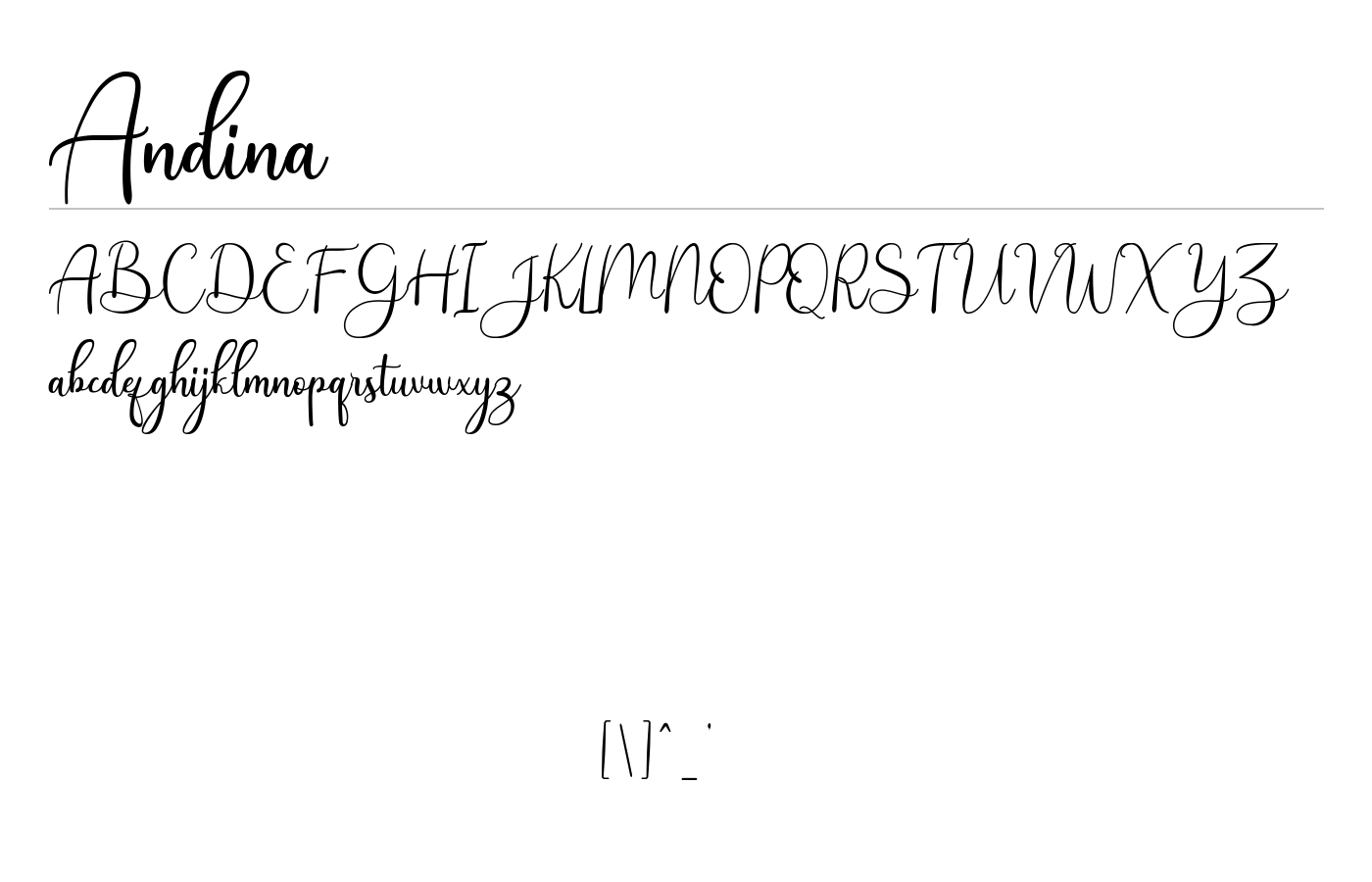
Andina is a delicate and elegant script font characterized by its smooth, flowing strokes and varying line thickness that gives it a hand-lettered, modern calligraphy feel. With its slender letterforms and graceful curves, it conveys a refined and stylish personality, making it ideal for invitations, branding, and any design seeking a feminine and sophisticated touch. This font works beautifully in logos, greeting cards, and fashion-related projects where an elegant yet approachable tone is desired.
Andina Font
About Andina Font
| Font family | Andina Font |
| Designer | Sabertype Studio |